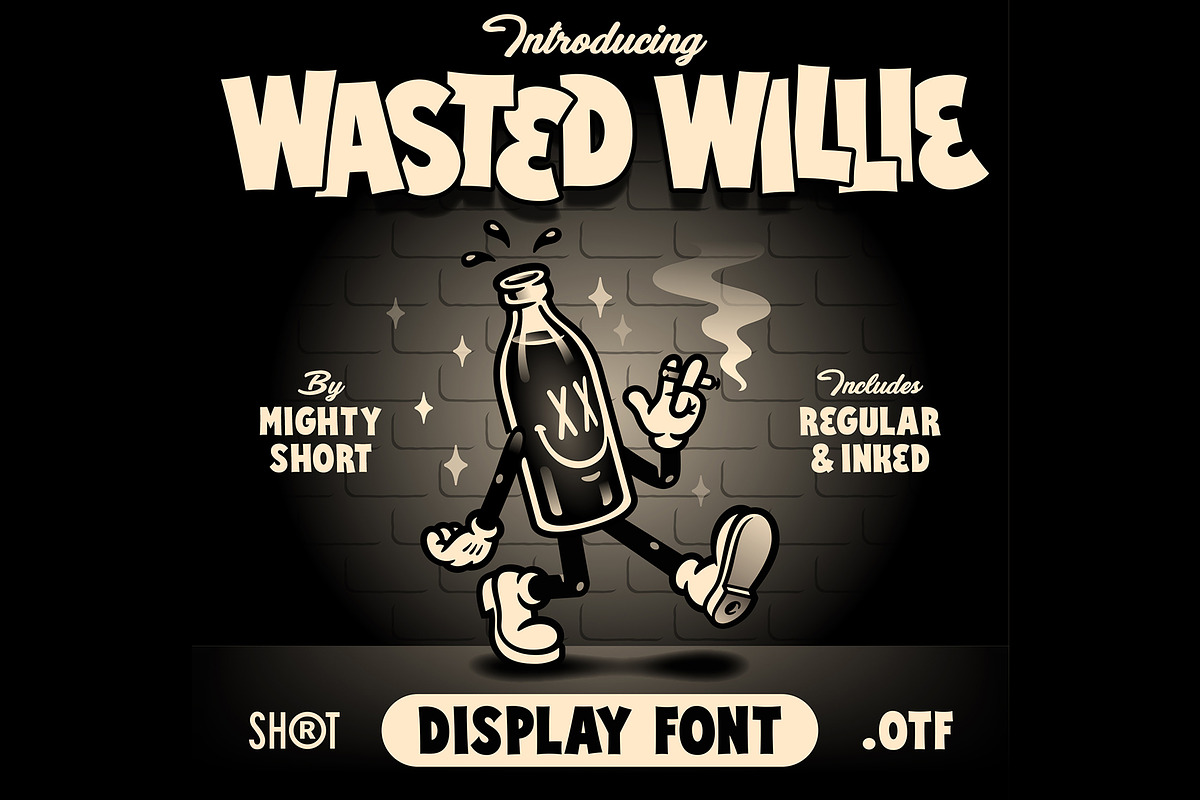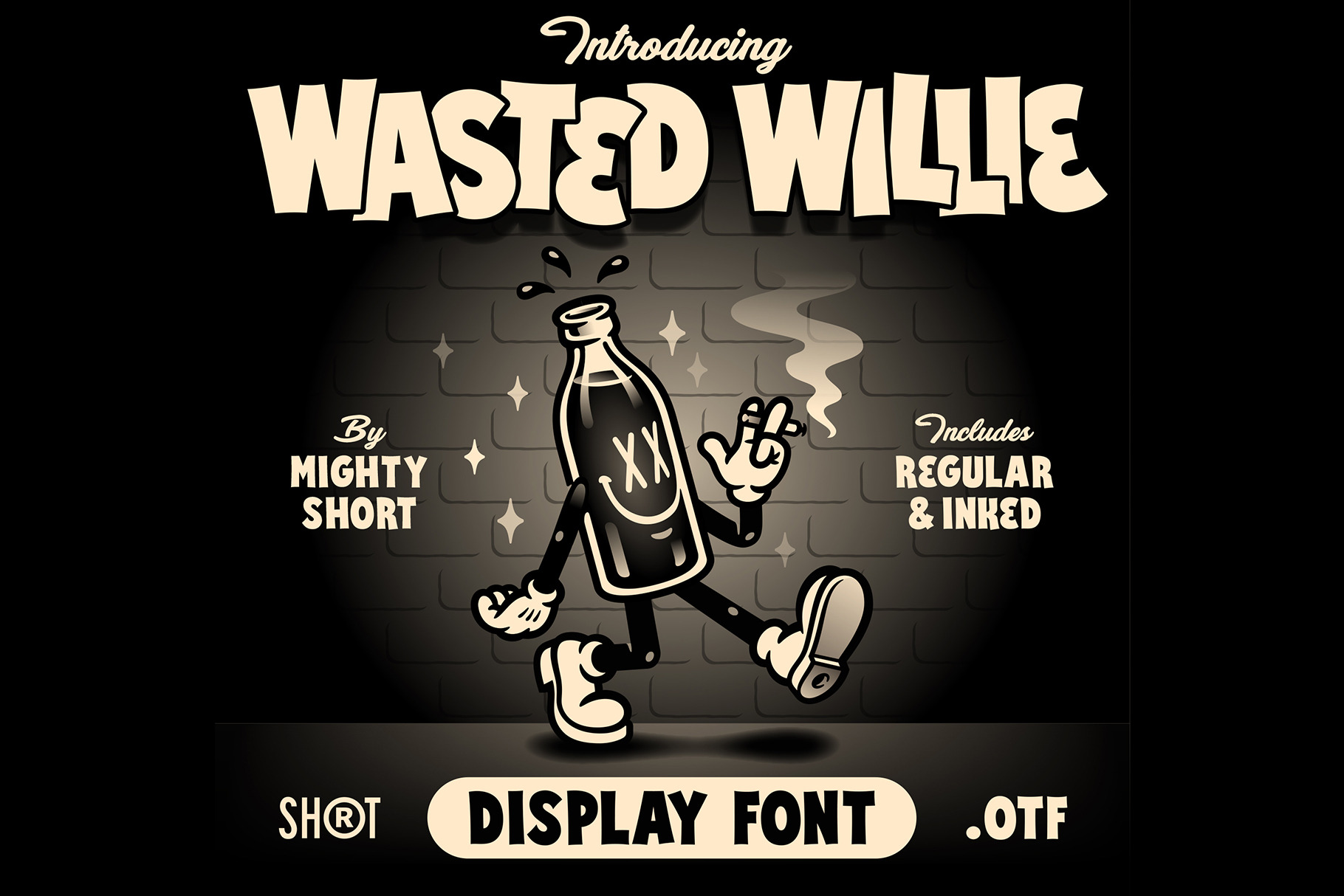
Wasted Willie Font
Wasted Willie font comes with Uppercase Letters, Numbers and some punctuation.
This retro cartoon feel will be a great to improve your tee-shirt design, publications, web, packaging, logos...
Includes 2 fonts: Regular and inked version.